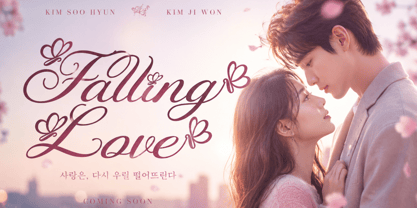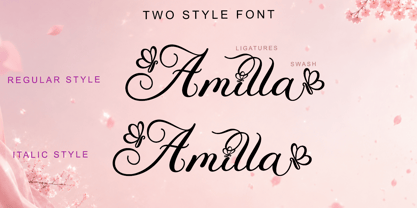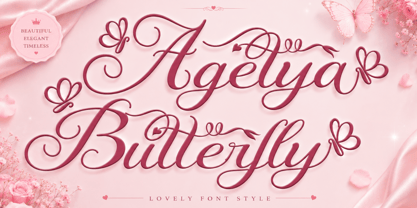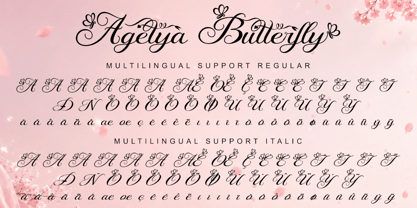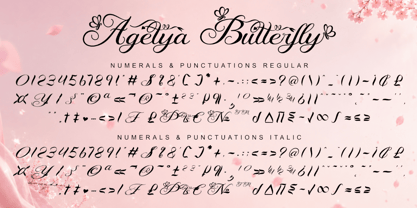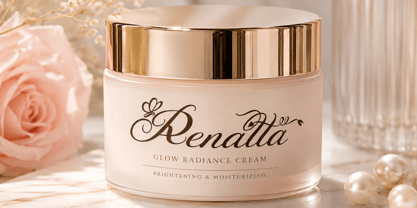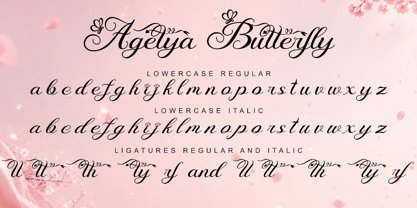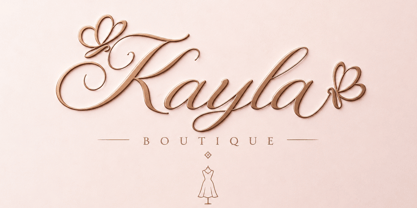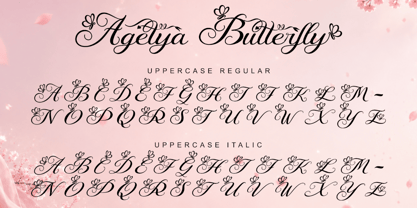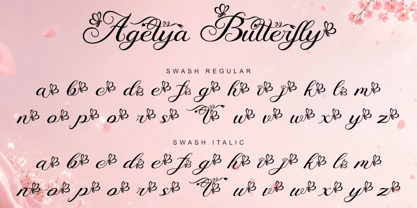
Agetya Butterfly
by Yoga Letter
The Agetya Butterfly Font Family was designed by Isroni Yoga Prasetya and published by Yoga Letter. Agetya Butterfly contains 2 styles and family package options. More about this family
"Agetya Butterfly" is a beautiful and elegant handwritten font. Available in two styles: regular and italic. It features uppercase and lowercase letters, numbers, punctuation, multilingual support, ligatures, swashes, and alternates. It's perfect for romantic movies, wedding invitations, photography, floral arrangements, social media, advertisements, YouTube, Christmas, summer, Valentine's Day, song titles, movie titles, and more.
Designers: Isroni Yoga Prasetya
Foundry: Yoga Letter
Agetya Butterfly